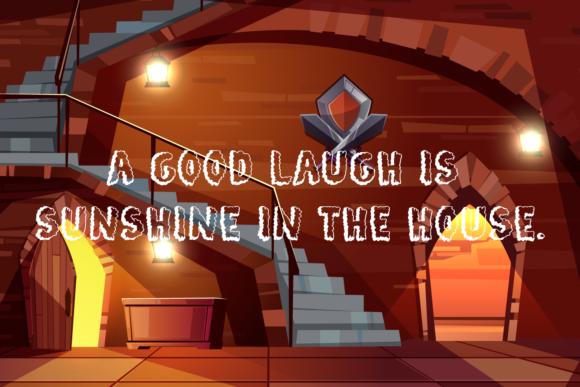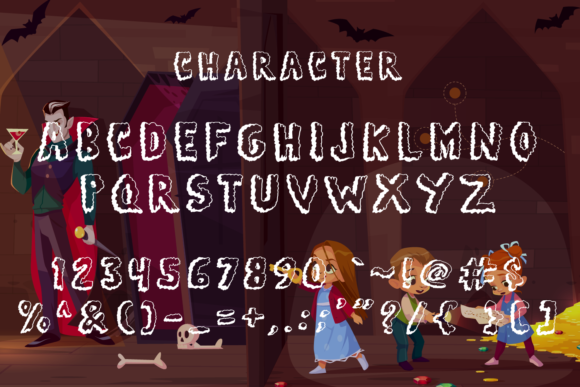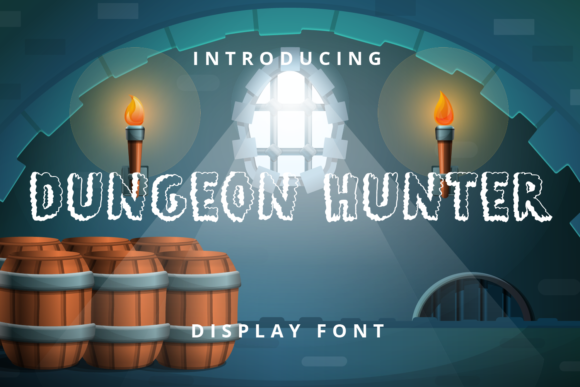
Dungeon Hunter Font: Unleash the Fun in Your Designs
Are you a designer or crafter looking for a font that can add a touch of playfulness and excitement to your creations? Look no further than the Dungeon Hunter Font! This cool and playful display font is perfect for kids’ designs, sporting events, and any project that needs a bold and adventurous vibe.
What is Dungeon Hunter Font?
Dungeon Hunter Font is a unique and eye-catching display font that features outlined letters with a bold and chunky design. The font is carefully crafted to resemble a fantasy-inspired style, reminiscent of old-school video games and adventure comics. Its distinctive look makes it stand out from more traditional fonts, adding a fun and dynamic element to any design.
Key Features of Dungeon Hunter Font
- Playful and Cool Design: The font boasts a playful and cool design that is sure to capture the attention of your audience.
- Outlined Letters: The outlined letters give the font a bold and chunky look that adds depth and dimension to your designs.
- Versatile: Despite its specific design, Dungeon Hunter Font is versatile enough to be used in various contexts, from kids’ designs to sporting events.
- Easy to Read: Despite its bold design, the font remains easy to read, making it perfect for headlines, titles, and short texts.
Use Cases for Dungeon Hunter Font
Dungeon Hunter Font is ideal for a wide range of design projects, including:
- Kids’ Designs: The font’s playful and adventurous vibe makes it perfect for kids’ books, posters, and games.
- Sporting Events: The bold and chunky design of the font makes it ideal for sports-related designs, such as team logos, jerseys, and event posters.
- Games and Comics: The font’s fantasy-inspired style makes it a great fit for games, comics, and adventure-themed designs.
- Posters and Flyers: The font’s bold design makes it perfect for creating eye-catching posters and flyers for events, promotions, and products.
Tips for Using Dungeon Hunter Font
To get the most out of Dungeon Hunter Font, here are some tips to keep in mind:
- Use it as a Headline Font: The font’s bold design makes it perfect for headlines and titles. Use it to grab attention and draw the reader in.
- Experiment with Colors: The font’s outlined design makes it versatile enough to be used with a wide range of colors. Experiment with different color schemes to find the one that works best for your design.
- Combine with Other Fonts: Don’t be afraid to combine Dungeon Hunter Font with other fonts to create a unique and interesting design. The font’s bold design makes it a great fit for pairing with simpler fonts.
Dungeon Hunter Font is a cool and playful display font that is sure to add a touch of excitement and adventure to your designs. Its bold and chunky design makes it perfect for kids’ designs, sporting events, and any project that needs a bold and adventurous vibe. With its versatility, ease of use, and range of applications, Dungeon Hunter Font is a must-have for designers and crafters looking to take their designs to the next level.